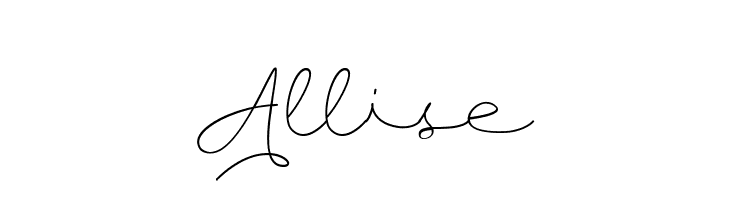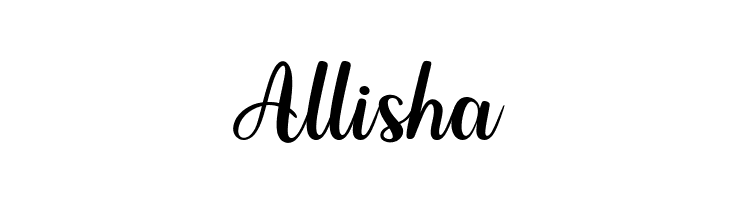
A graceful, handwritten script font with flowing, cursive strokes.
A flowing, cursive script with elegant, sweeping strokes.
An elegant and sophisticated script font with flowing curves and ornate swashes.
A lively, expressive handwritten font with a dynamic slant.
A bold, handwritten script font with a lively and modern style.
An elegant, expressive script font with fluid, dynamic strokes and artistic flair.
A fluid and elegant script font with a handwritten style.
A lively and fluid script font with a natural, handwritten style.
A lively handwritten font with fluid and dynamic strokes.